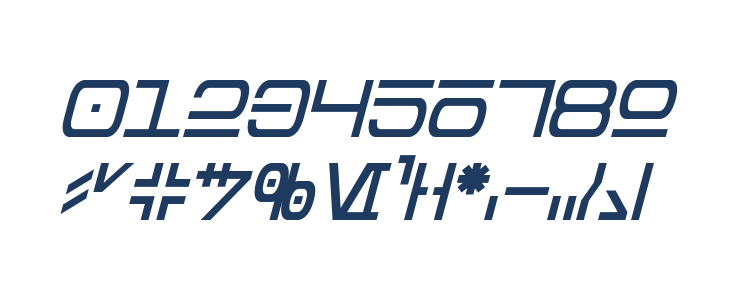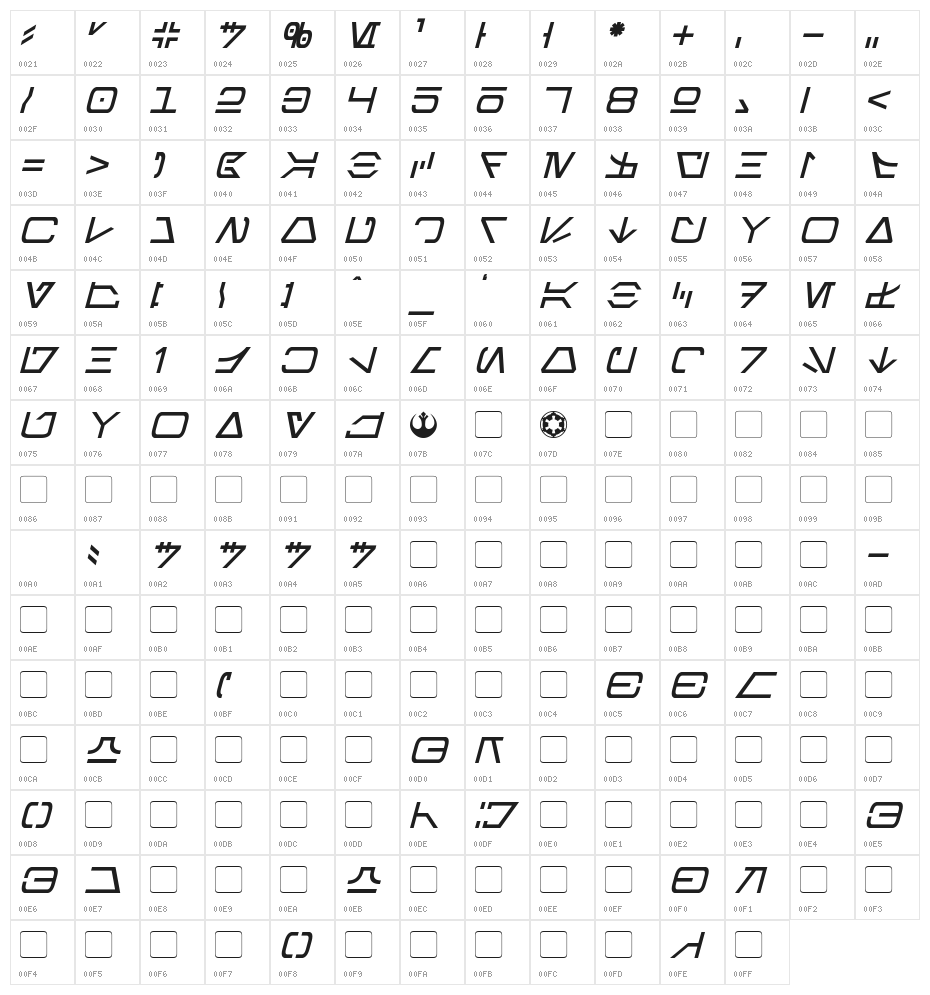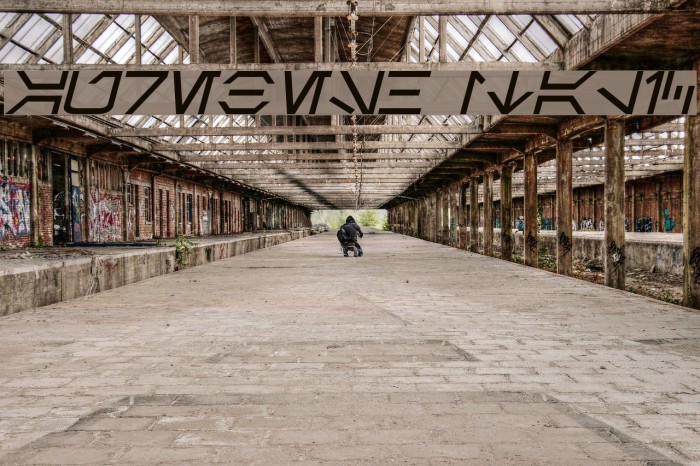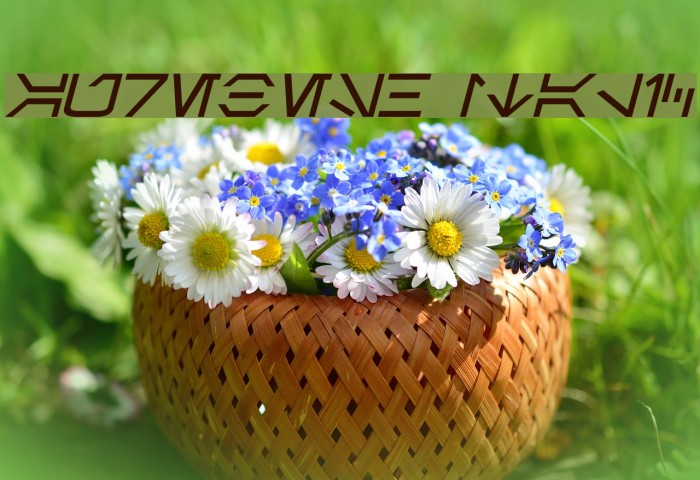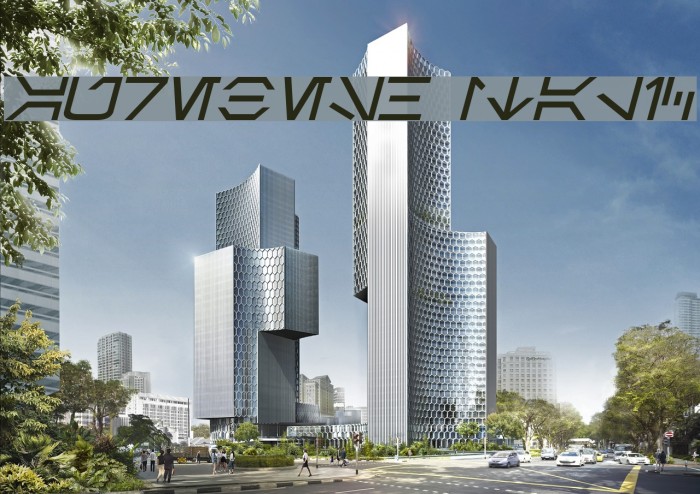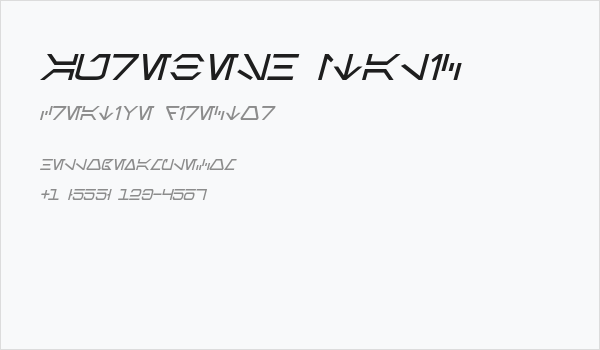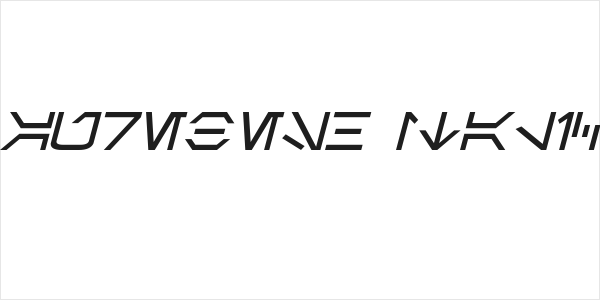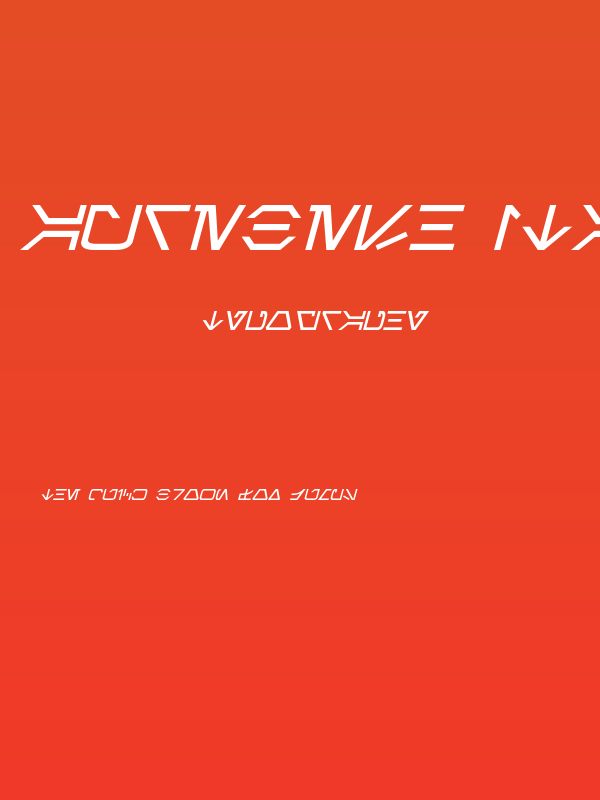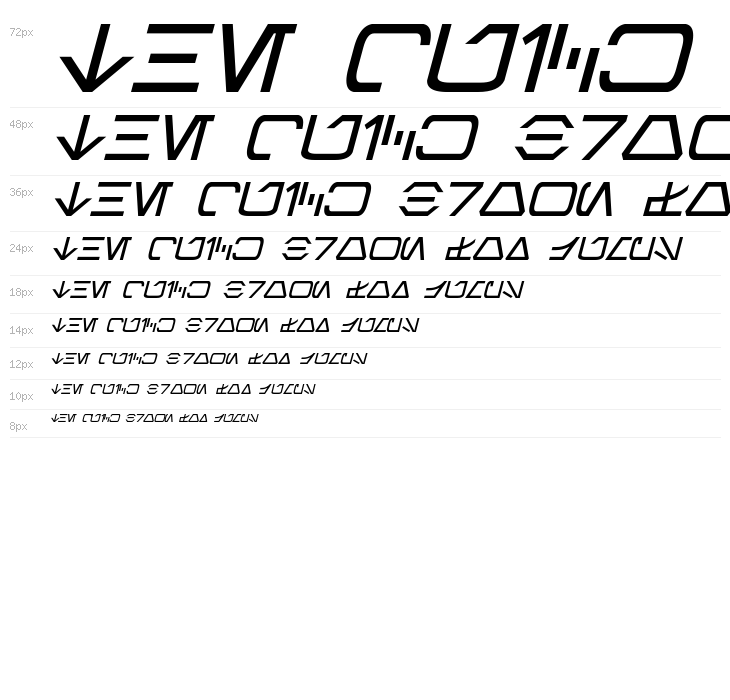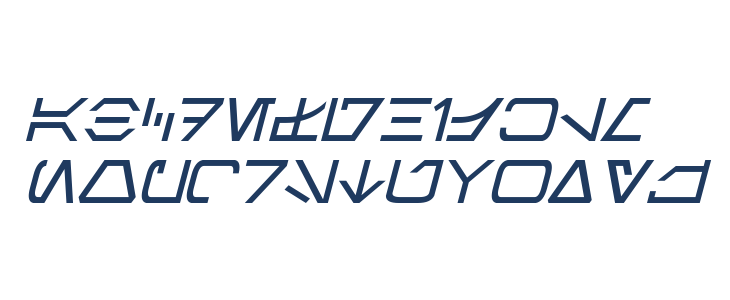
Aurebesh Italic Font
Aurebesh Italic Description
This font features a futuristic and angular design, reminiscent of science fiction aesthetics. The characters are slanted, giving an italicized appearance, and are composed of sharp, geometric lines and edges. The overall look is sleek and modern, with a distinct alien or otherworldly vibe. The numerals and special characters maintain the same angular style, ensuring consistency across all glyphs. This font is highly stylized, making it ideal for creative and thematic projects that require a unique and striking visual impact.
| Overall Style | Futuristic, Sci-Fi |
| Use Case | Headlines, Logos, Thematic designs |
| Proposed Projects | Ideal for science fiction themed projects, video game interfaces, movie posters, and branding for tech companies. |